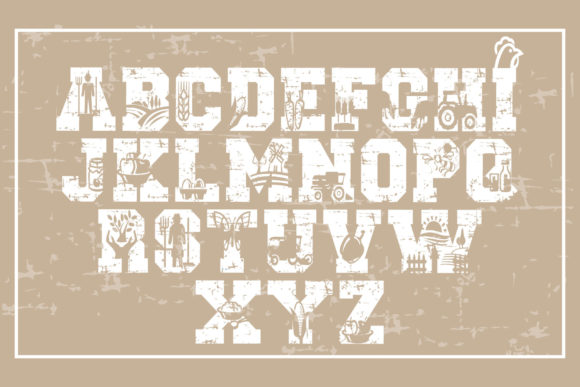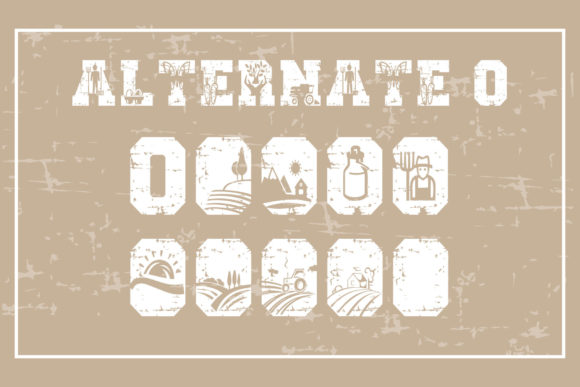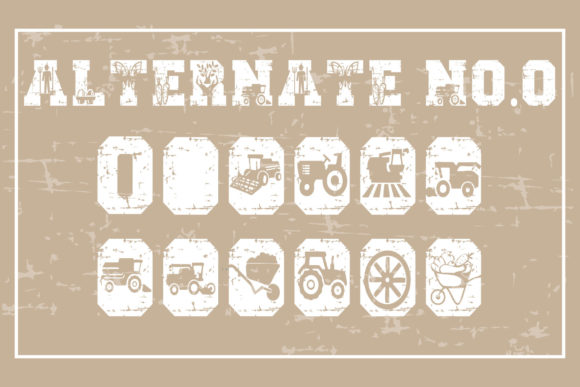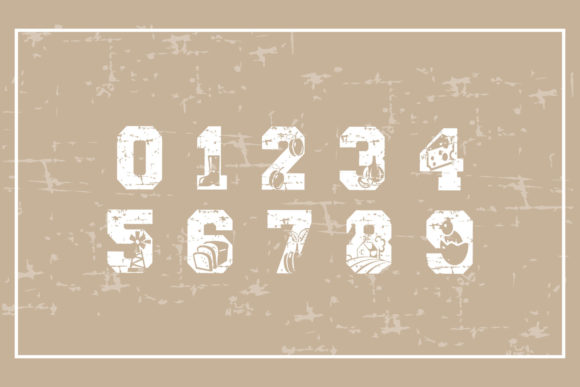
Introducing Farm House Font: The Perfect Addition to Your Rural-Inspired Designs
Are you a designer, crafter, or DIY enthusiast looking for a font that captures the essence of the countryside? Look no further than Farm House Font, a bold, cool, and assertive decorative font that’s perfect for a wide range of design ideas related to farms and rural living. In this article, we’ll explore the features and benefits of Farm House Font, and show you how to make the most of this beautiful font in your designs.
What is Farm House Font?
Farm House Font is a decorative font that’s specifically designed to evoke the rustic charm of the countryside. With its bold and assertive style, this font is perfect for creating eye-catching designs that stand out from the crowd. Whether you’re designing a logo, signage, or promotional materials for a farm, rural business, or craft project, Farm House Font is the perfect choice.
Key Features of Farm House Font
- Bold and Assertive Style: Farm House Font features a bold and assertive style that’s perfect for creating eye-catching designs.
- Decorative and Rustic: This font has a decorative and rustic feel that’s perfect for evoking the charm of the countryside.
- Highly Versatile: Farm House Font can be used for a wide range of design ideas, from logos and signage to promotional materials and craft projects.
Design Ideas with Farm House Font
Farm House Font is incredibly versatile and can be used for a wide range of design ideas. Here are a few examples to get you started:
- Farm Logos: Create a bold and eye-catching logo for your farm or rural business using Farm House Font.
- Rural Signage: Use Farm House Font to create eye-catching signage for your farm, rural business, or craft project.
- Promotional Materials: Create promotional materials such as brochures, flyers, and posters using Farm House Font.
- Craft Projects: Use Farm House Font to add a personal touch to your craft projects, such as scrapbooking, card making, and DIY home decor.
Tips for Using Farm House Font
Here are a few tips for using Farm House Font in your designs:
- Experiment with Different Sizes: Farm House Font looks great in a variety of sizes, so don’t be afraid to experiment with different sizes to find the one that works best for your design.
- Pair with Other Fonts: Farm House Font pairs well with other fonts, so try pairing it with a script font or a sans-serif font to create a unique and interesting design.
- Add Texture and Patterns: Add texture and patterns to your design to give it a more rustic and countryside feel.
Farm House Font is a beautiful and versatile font that’s perfect for designers, crafters, and DIY enthusiasts who want to add a touch of the countryside to their designs. With its bold and assertive style, this font is sure to make a statement in any design. Whether you’re creating a logo, signage, or promotional materials, Farm House Font is the perfect choice. So why wait? Download Farm House Font today and start exploring its endless variations!
- What is Farm House Font?: Farm House Font is a decorative font that’s specifically designed to evoke the rustic charm of the countryside.
- What is Farm House Font used for?: Farm House Font can be used for a wide range of design ideas, including logos, signage, promotional materials, and craft projects.